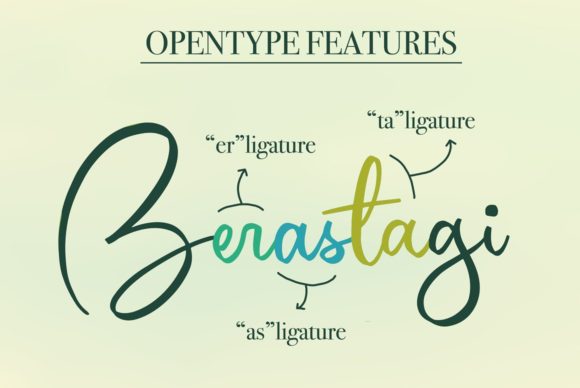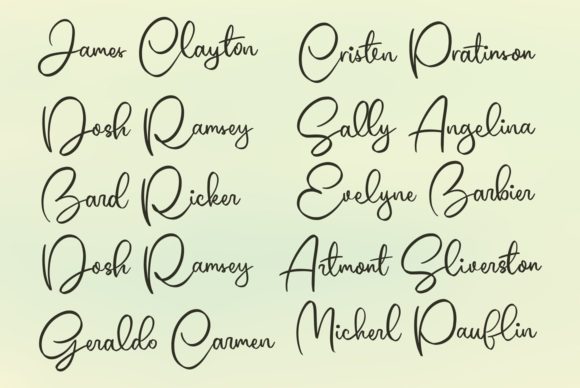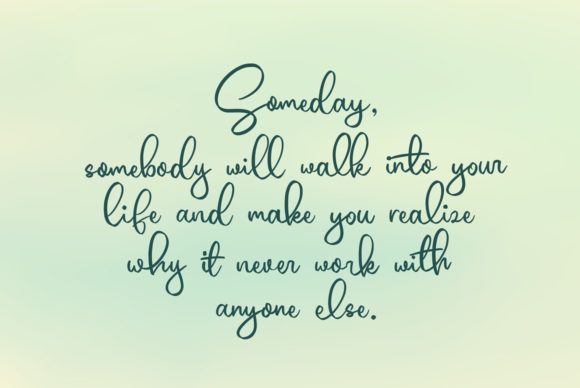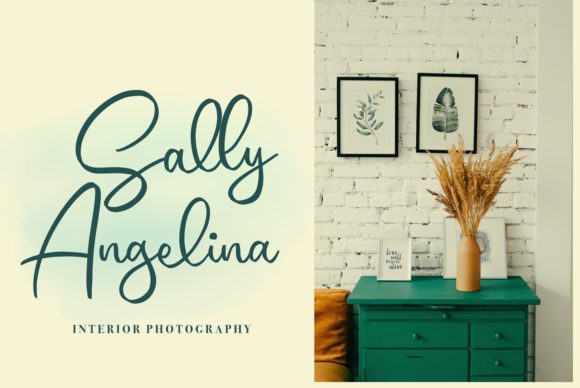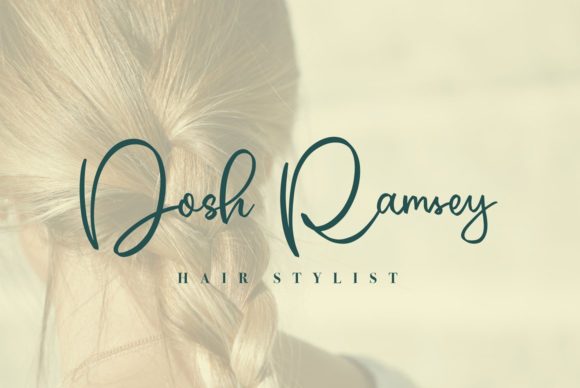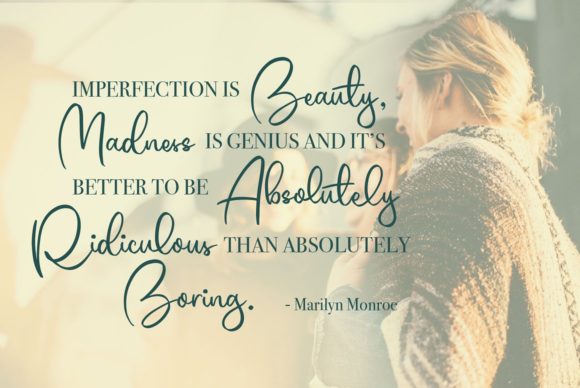
About Berastagi Font
Berastagi is a delicate and relaxed handwritten font. It is PUA encoded which means you can access all of the glyphs and swashes with ease! It maintains its classy calligraphic influences while feeling contemporary and fresh. Fall in love with this font and bring your projects to the highest levels!